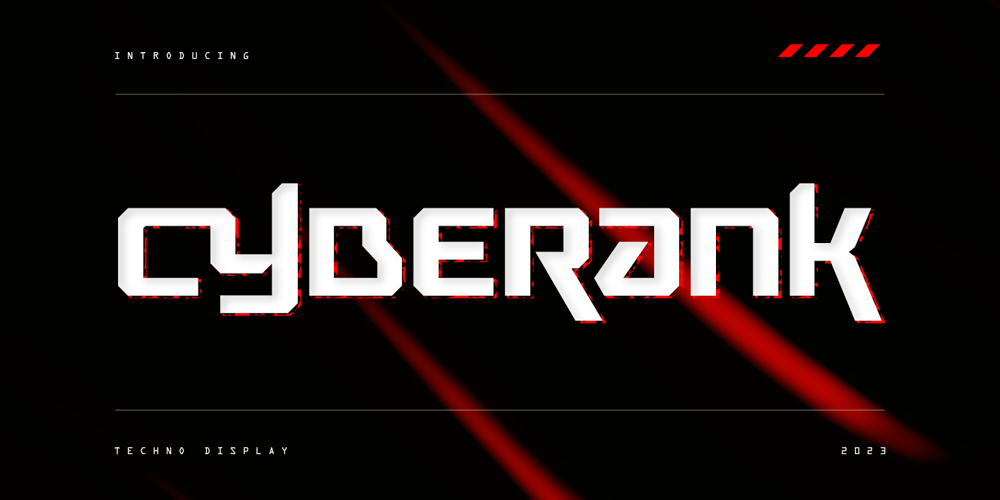
Cyberank Font Family was designed by Toni Setiawan and published by Namara Creative Studio. Cyberank contains 1 styles and family package options. Cyberank techno display typeface is a bold geometric with sharp angles typeface to unleash creativity and transform your designs! Strong and impactful characters with a futuristic look create a powerful visual impact that will leave a lasting impression on your audience.Features : Bold, Unique & Strong Techno Display Typeface Futuristic Character Design Alternates, Ligatures & Multilingual Support with PUA Encoded Note : To be able to access ligatures and the alternate letters, please make sure the software you are using can support opentype features.